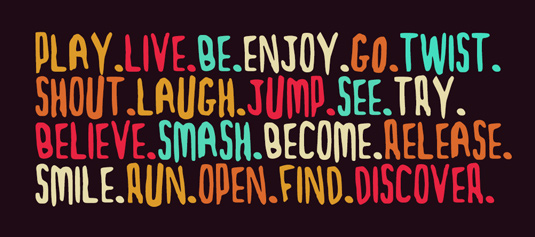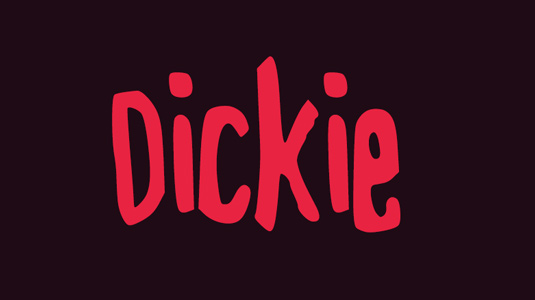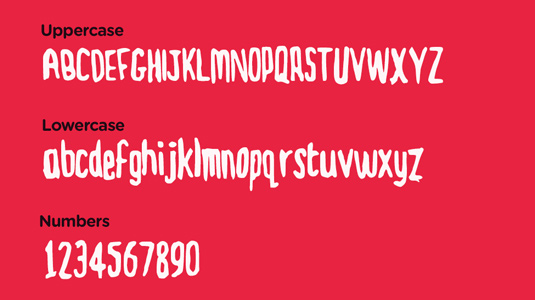
Font of the day: Dickie
Every day we showcase the best fonts on the web. Today it's Dickie by David Ellis, which is totally free to download.
Dickie by David Ellis
Freelance designer David Ellis created handwritten font Dickie using MyScriptFont, an online tool that allows you to create a vector font from your own handwriting. "It’s a great starting point as there aren’t that many great handwriting style fonts out there and it’s a pretty quick process," Ellis comments.